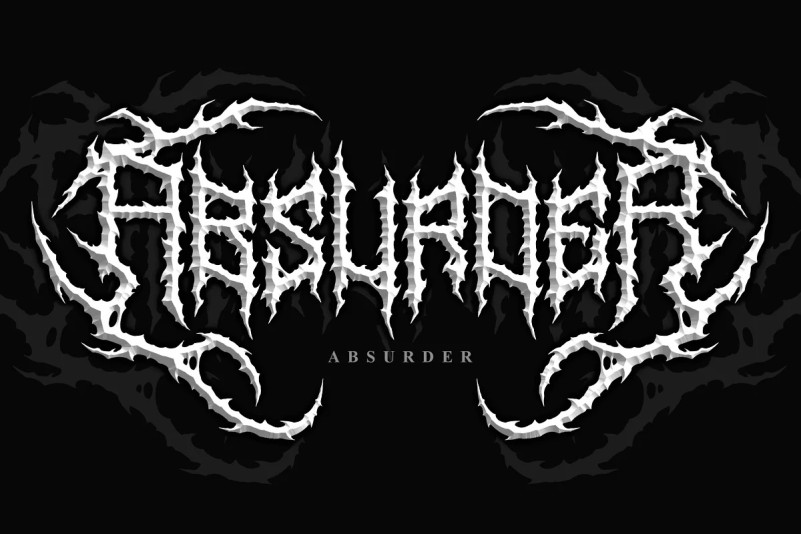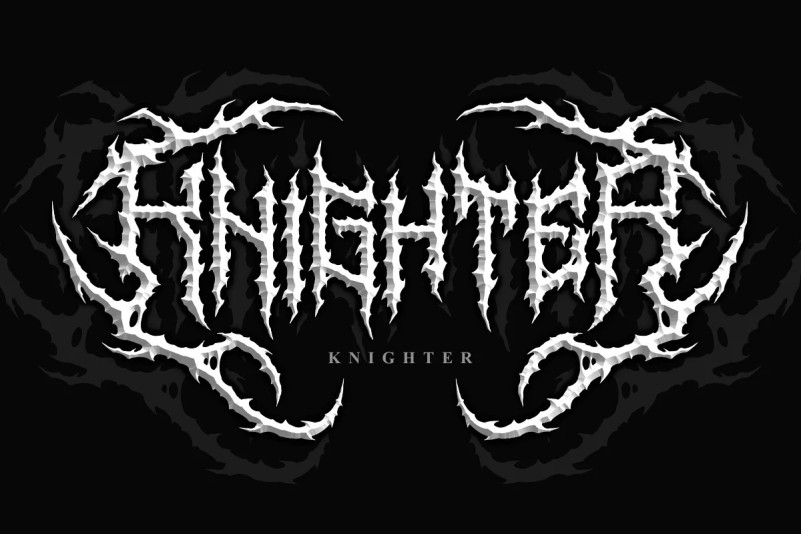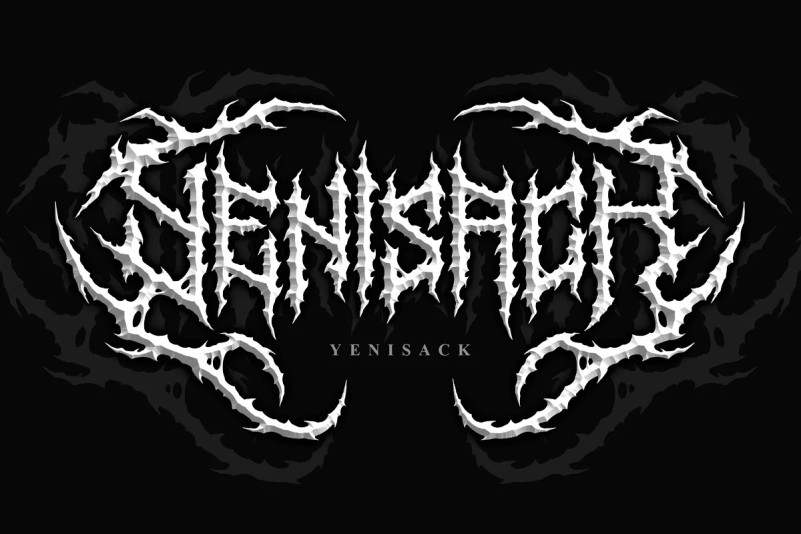
Yenisack Font
Yenisack Font is a carefully crafted font, which features a very heavy black metal feel.
Yenisack suitable for metal band logos, merchandise, clothing, apparel, or anything that needs a black metal feel.